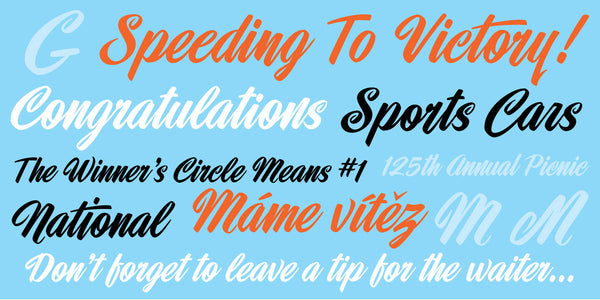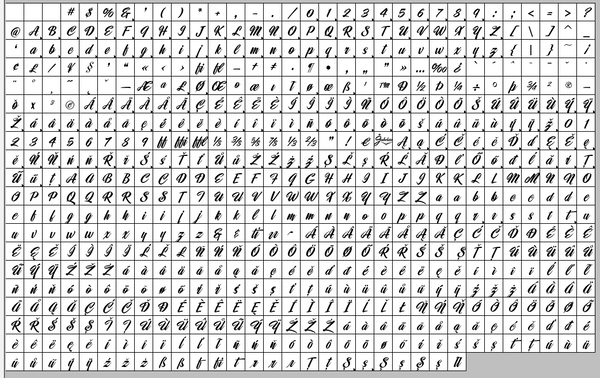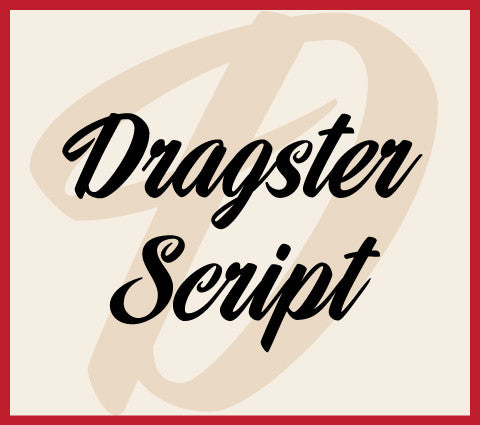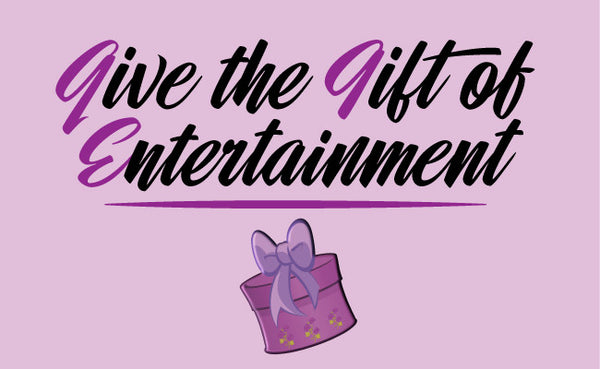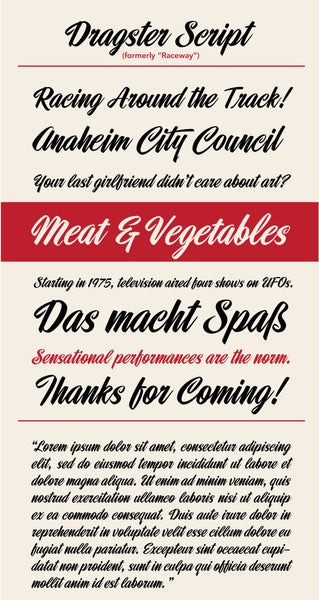
Dragster Script
Dragster Script (formerly known as Raceway) is another script font inspired by the work of sign-painter, Mike Stevens and one of my personal favorites. To add typographic variation and a more hand-lettered feel, Dragster Script contains three versions of each letter, plus a few additional alternates and ligatures to round out the glyph set. Full of energy and fun, this font is perfect for a variety of designs! Mixing and matching these variations gives your design a more organic feel. I enhanced the bouncy mood of this typeface by slightly modulating the baseline. Dragster Script is a great font with terrific versatility.